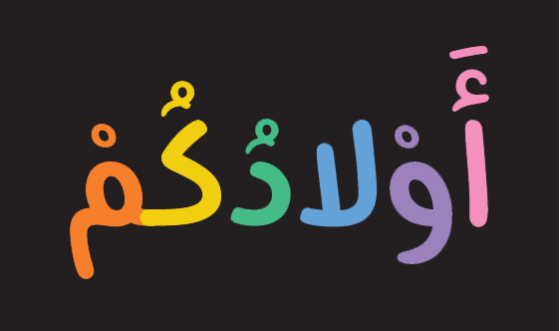
BoutrosPlay
Designer: Boutros Fonts / Arlette Boutros.
BoutrosPlay is based on a child freehand calligraphic style that merges features from different classical Arabic scripts to create a unique contemporary display, and elegant typeface legible in all sizes. BoutrosPlay is a great headline, sub-headings and body text. The typeface is available in two weight with a standard character set.